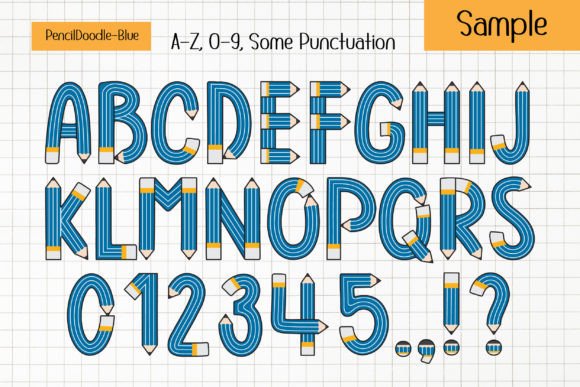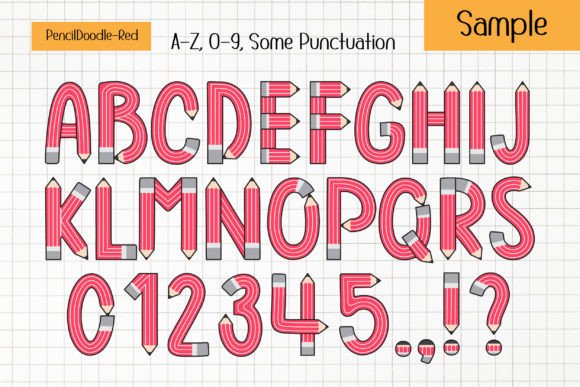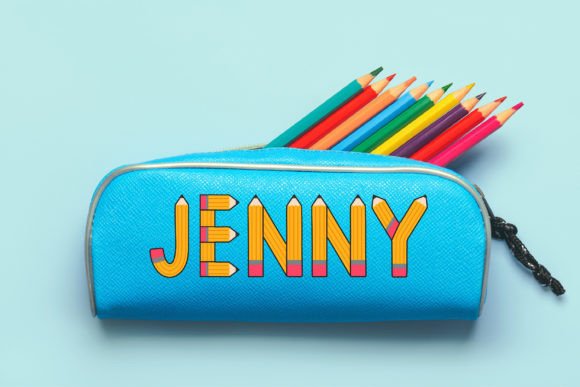
Pencil Doodle Font
“Pencil Doodle” is a delightful back-to-school font theme inspired by the shape of a pencil. This colorful and funny font is perfect for kids, featuring four vibrant color styles and 20 matching doodle clip art. Ideal for custom DIY craft projects, personalized names, sublimations, posters, and a variety of other creative works, “Pencil Doodle” adds a playful and educational touch to your designs, making it the perfect choice for back-to-school themes and more!